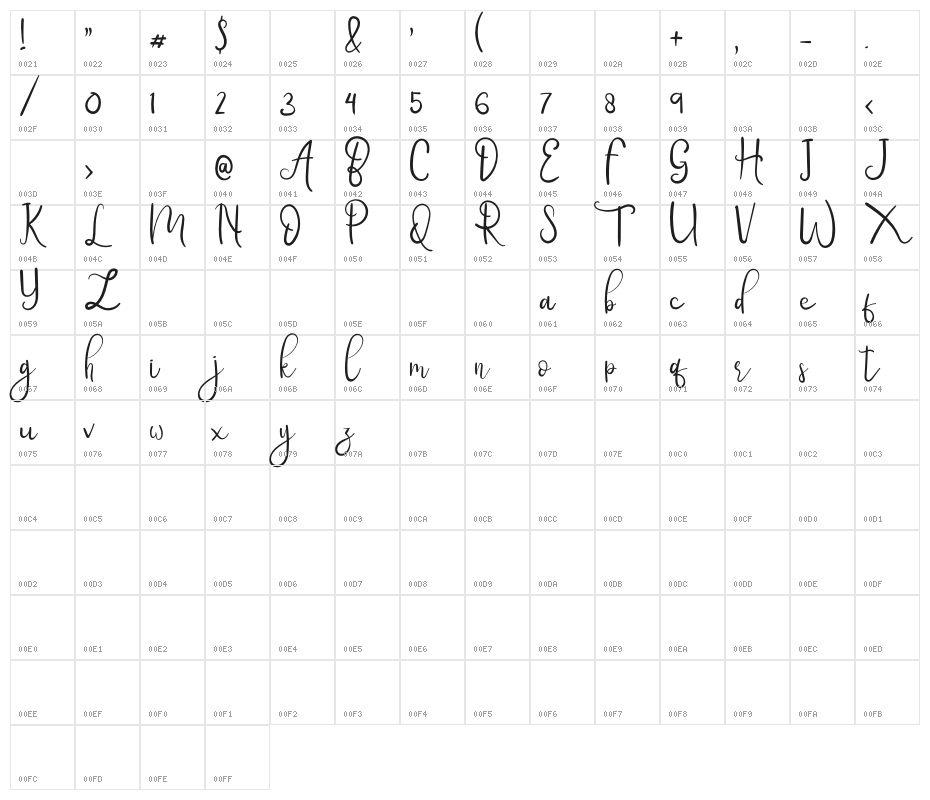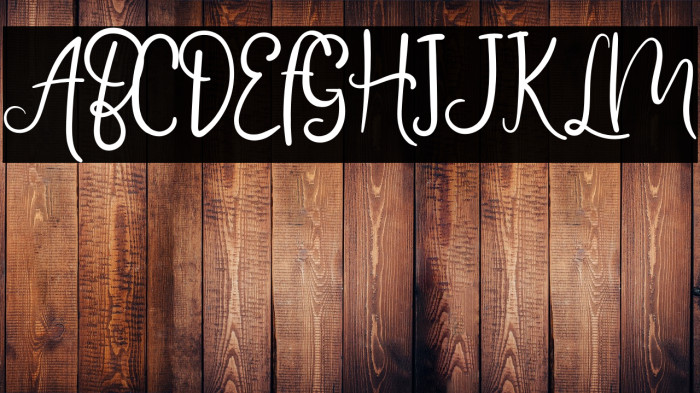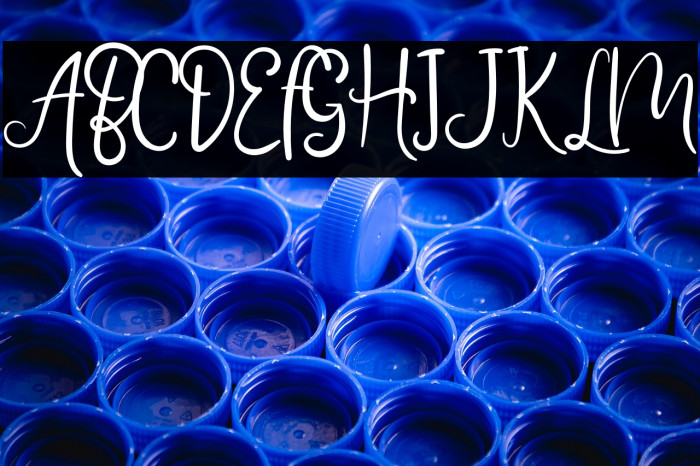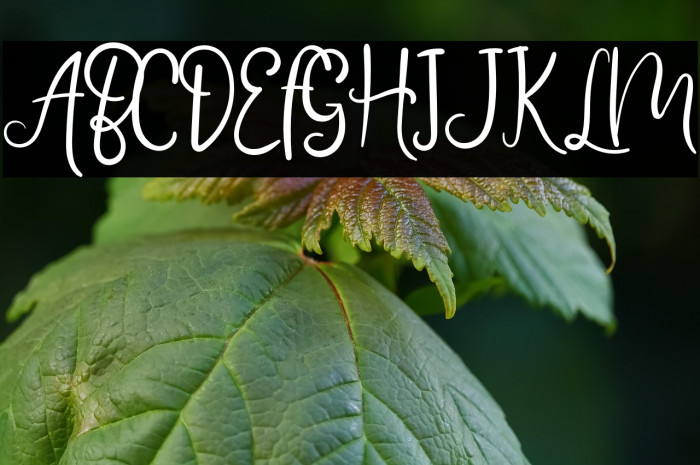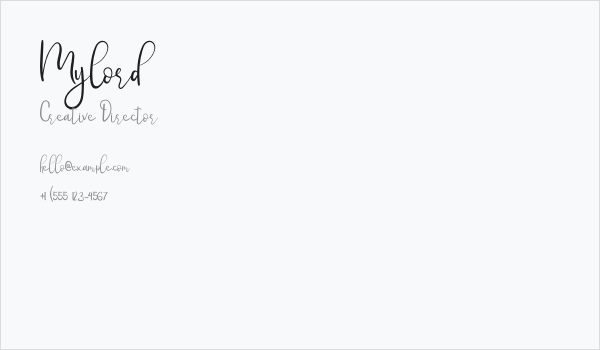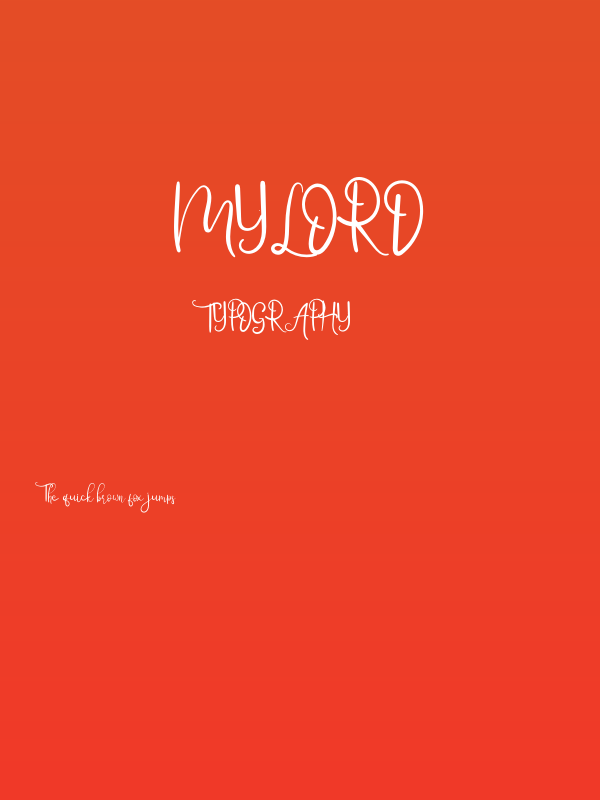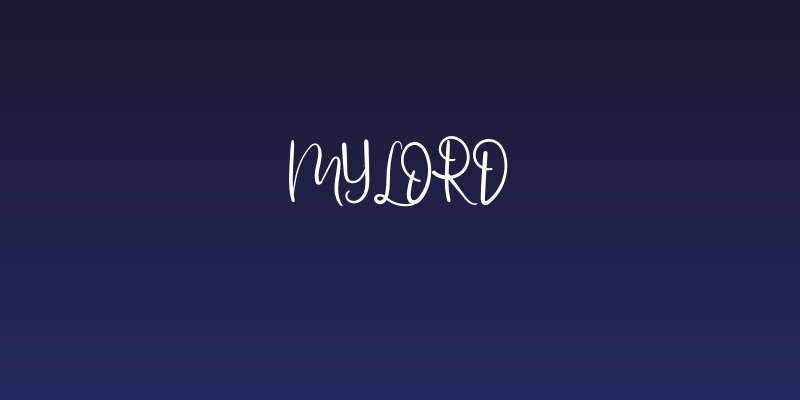
Mylord Font
Mylord Description
This font features a flowing, cursive style with elegant loops and swirls, giving it a sophisticated and artistic appearance. The uppercase letters are bold and prominent, while the lowercase letters maintain a consistent fluidity, enhancing its handwritten charm. The numbers and special characters are designed to match the overall aesthetic, ensuring a cohesive look across all elements. The strokes vary in thickness, adding a dynamic and lively feel to the text. This font is ideal for projects that require a touch of elegance and creativity.
| Overall Style | Elegant, Artistic |
| Use Case | Logos, Invitations, Decorative text |
| Proposed Projects | Ideal for wedding invitations, greeting cards, personal branding, and artistic posters. |